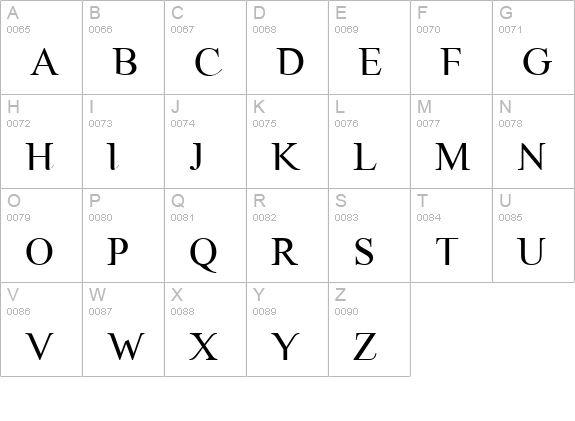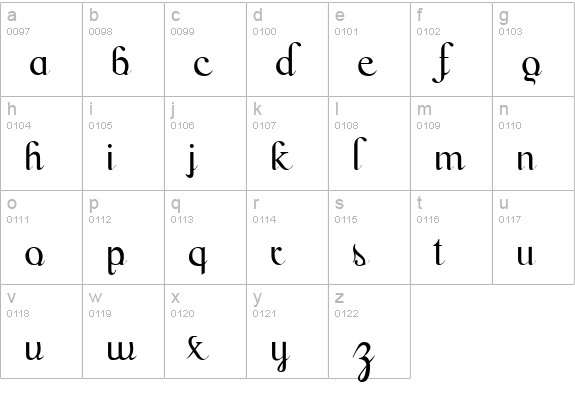
Scrypticali Normal Font Details
Scrypticali Normal is the standard, neutral variant in the Scrypticali typeface family \xE2\x80\x94 well suited to general body text, paragraphs, and standard typographic work.
Scrypticali Normal font is a modern and versatile typeface that exudes a sense of sophistication and elegance. With its clean lines and balanced proportions, this font is perfect for a wide range of design projects, from branding and logos to websites and print materials. The Scrypticali Normal font offers a unique blend of classic and contemporary elements, making it suitable for both traditional and modern designs. Its sleek and legible letterforms ensure optimal readability, while its subtle curves and details add a touch of personality and character. Whether you're looking to create eye-catching headlines or elegant body text, Scrypticali Normal font has you covered. Its wide range of weights and styles allows for endless creative possibilities, ensuring that your designs stand out from the crowd. One of the best things about Scrypticali Normal font is that it is available for free. You can easily download this stunning font at FontsMarket.com, where you'll find a wide selection of high-quality fonts for all your design needs. With Scrypticali Normal font, you can add a touch of sophistication to your projects without breaking the bank. So, if you're in need of a versatile and stylish font that won't cost you a penny, look no further than Scrypticali Normal font. Download it now at FontsMarket.com and let your creativity flow freely.